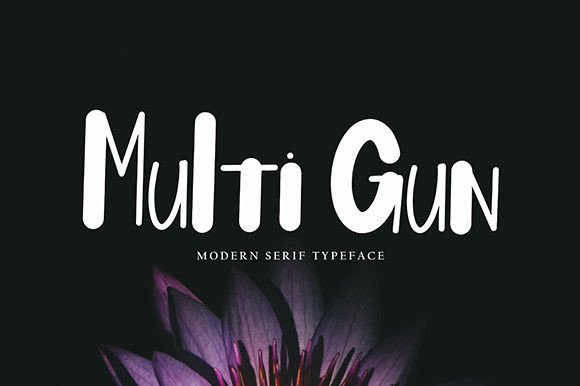
Introducing the Multi Gun Font — A Typographic Masterpiece for Your Creative Journey!
Step into the world of Multi Gun, a sans serif font that exudes coolness and casualness, designed to be your trusted creative companion. With its captivating curves and confident strokes, Multi Gun possesses the power to transform your creative visions into stunning realities.
Unleash the Potential of Your Designs:
Multi Gun is more than just a font; it's an open invitation to explore the endless possibilities of creativity. Its carefully crafted characters dance gracefully on the page, ready to bring life to your designs and leave a lasting impression on your audience.
Create Designs that Speak:
With Multi Gun as your ally, your designs will speak volumes. Its versatility knows no bounds, making it the perfect choice for wedding invitations, greeting cards, branding projects, social media graphics, and more. Let your imagination run wild and let Multi Gun amplify your message with style and sophistication.
Effortless Elegance for Your Wedding:
Planning your special day? Look no further! Multi Gun is the perfect font to capture the essence of your love story. Its delicate strokes and harmonious curves will add a touch of timeless elegance to your wedding invitations, programs, and signage. Let Multi Gun set the stage for a truly unforgettable celebration.
Make Your Brand Stand Out:
Elevate your brand's identity with Multi Gun's captivating presence. Its clean lines and modern aesthetic will give your logo, business cards, and marketing materials a distinctive edge. Multi Gun is the key to creating a brand that resonates with your audience and leaves a lasting impression.
Dive into the World of Multi Gun: